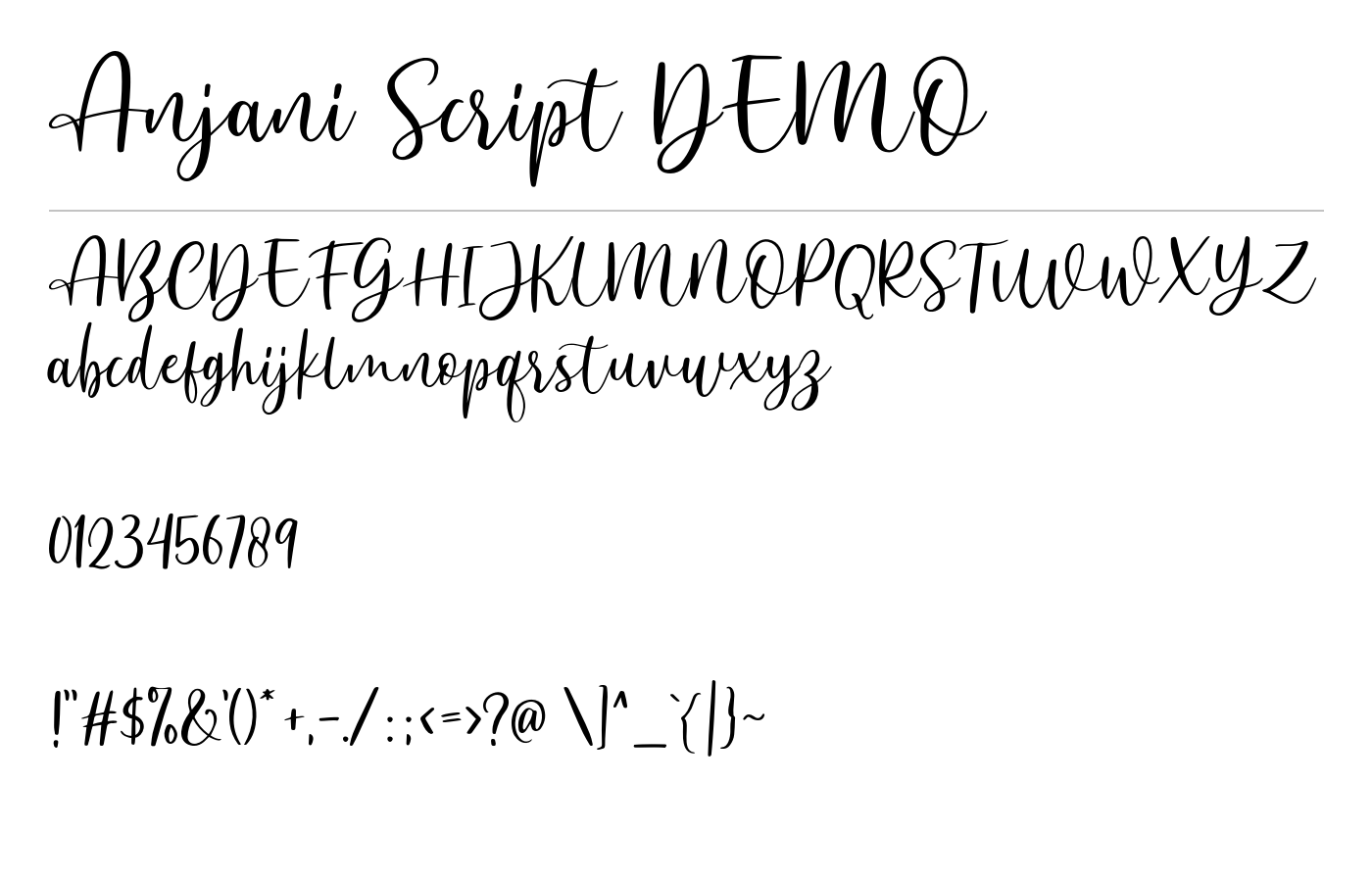
Anjani Script DEMO is a stylish and elegant handwritten script font featuring tall, flowing letterforms with a casual yet refined feel. Its light, slightly condensed strokes and charming cursive connections give it a modern, playful personality ideal for creative branding, invitations, and feminine design projects. This font works beautifully for logos and headlines where a personal, warm touch is desired.
Anjani Script DEMO Font
About Anjani Script DEMO Font